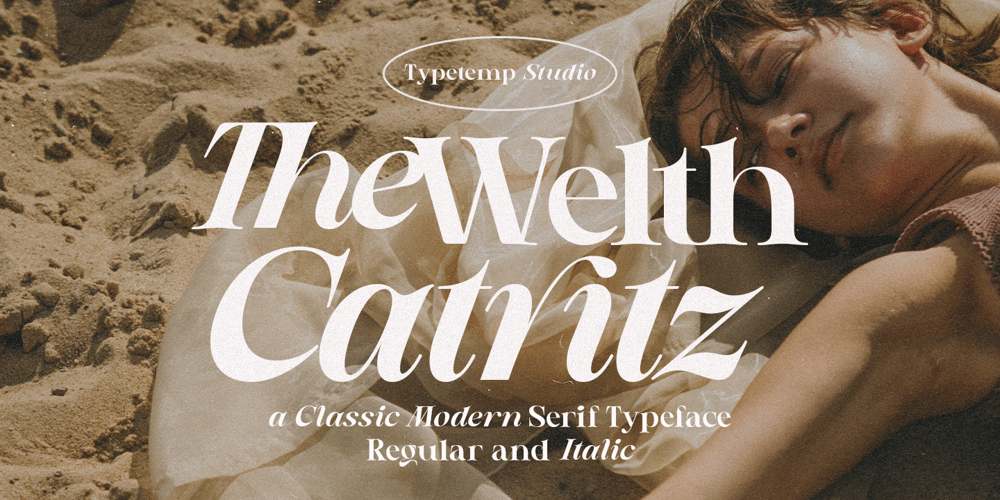
Welth Catritz Font Family was designed by Egi Ahmad Mufid and published by Typetemp Studio. Welth Catritz contains 2 styles and family package options. Welth Catritz Serif Typeface is a stylish font It has both Classic Modern look. Comes with alternatives and ligatures, helps to create stunning logos, quotes, posts, blog posts. branding projects, magazine imagery, wedding invitations, and much more.WHAT YOU GET: Unique Letterforms Works on PC & Mac Simple Installations Accessible in the Adobe Illustrator, Adobe Photoshop, Microsoft Word Fully accessible without additional design software. To generate all ligatures, please open Adobe Ilustrator/Photoshop – Type – Glyphs.